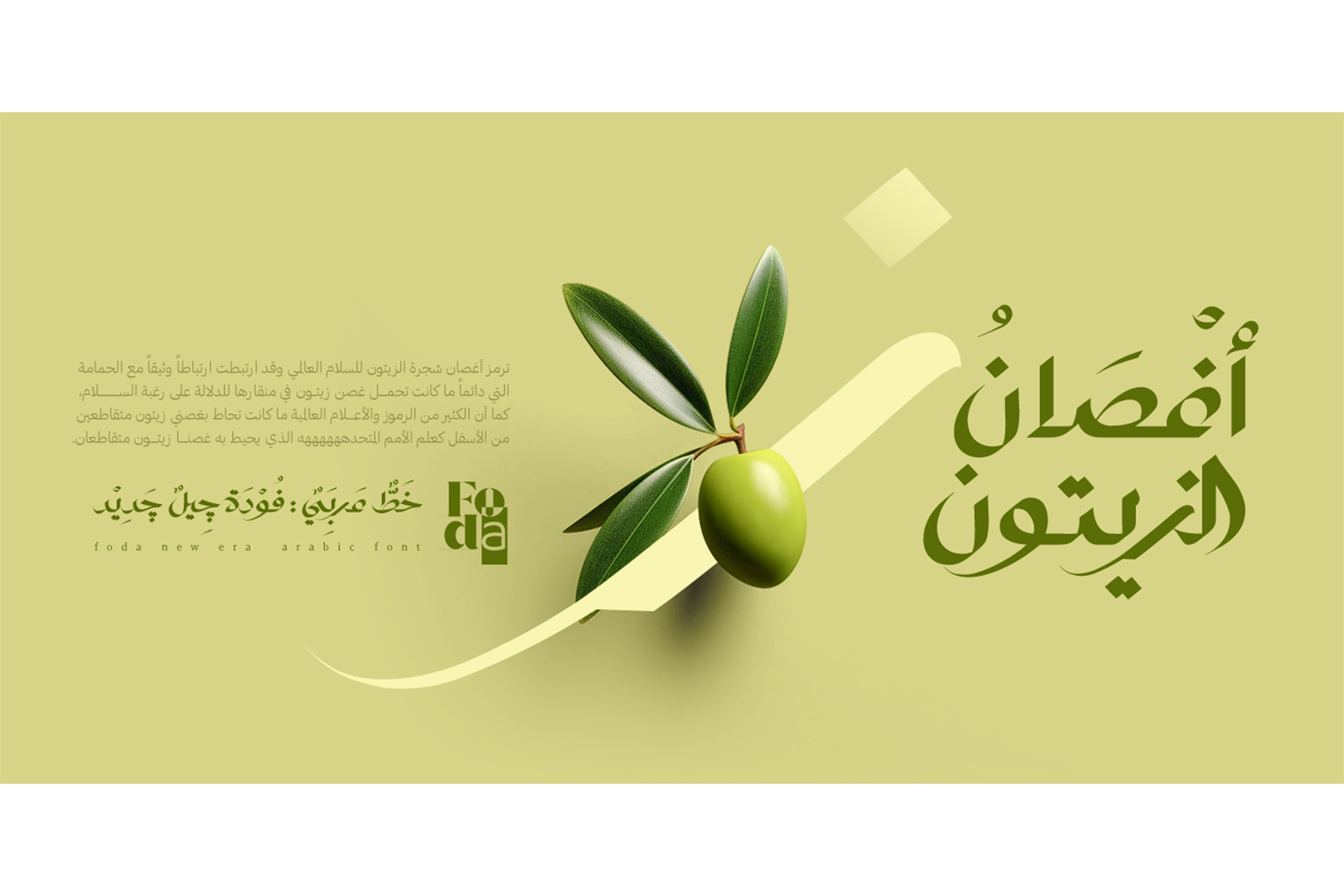
Foda New Era Arabic Font
Foda New Era is an Arabic modern calligraphy that is suited for branding, logos, packaging, advertising, social media designs, posters and more supported with Display Latin Glyphs.